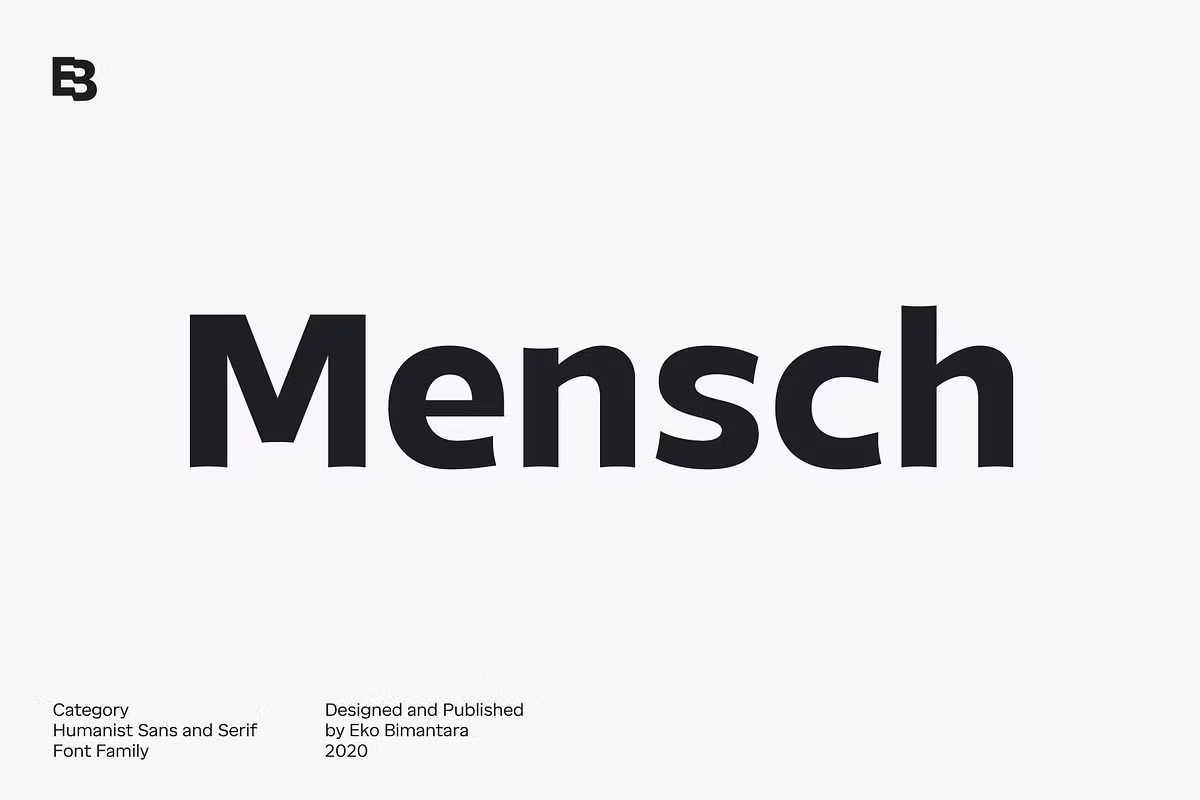
Mensch; 32 Fonts of Sans & Serif Free Download is a comprehensive and versatile typeface collection featuring a full range of sans-serif and serif styles. Please note: you must purchase this font for commercial use, but you can test it through a free download. With 32 carefully crafted fonts, Mensch offers everything from light and elegant weights to bold and impactful styles—making it ideal for branding, editorial design, packaging, websites, and professional presentations.
This font family gives you the freedom to mix and match while maintaining visual harmony and typographic consistency. Whether you're building a minimalist brand or designing a multi-layered editorial layout, Mensch; 32 Fonts of Sans & Serif Free Download has the tools you need. It’s fully compatible with Adobe Illustrator, Photoshop, Canva, and more. Download it today for personal use and unlock a full suite of clean, modern, and highly usable typefaces with Mensch.